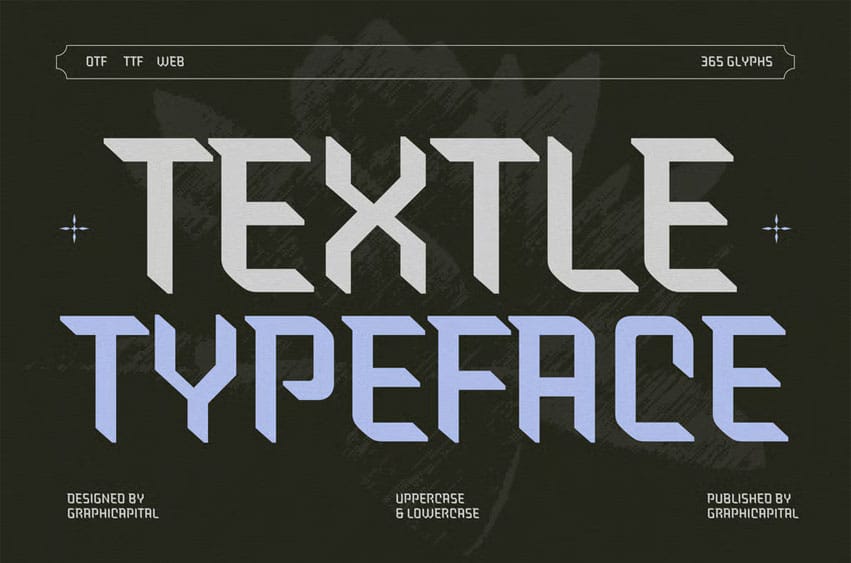
Textle Font is a modern display font influenced by blackletter, combining geometric forms and sharp angles. With its gothic-meets-futuristic vibe, it’s perfect for posters, album covers, branding, and edgy contemporary designs.
Ideal for branding, posters, headlines, packaging, album art, game visuals, and promotional designs. It adds personality to any creative project and helps your message stand out effortlessly.